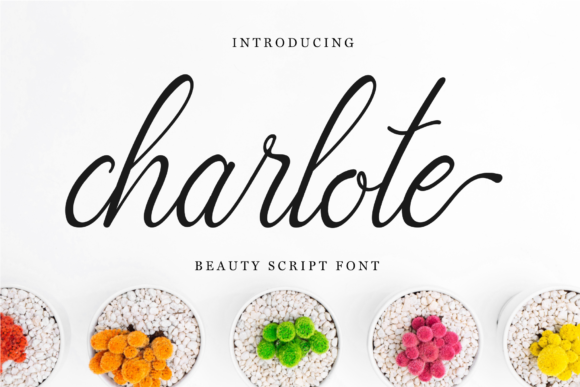
The Perfect Script Font for Your Next Creative Project
Have you ever stared at a blank page, trying to find the perfect words to express your idea, only to be held back by the monotony of the font you’re using? We’ve all been there. It’s that moment when you wish you had the perfect tool to bring your creativity to life.
Enter the Charlote Script Font, a delicate script font with a relaxed theme that’s designed to elevate your creations. With its lovely style, this font is the perfect addition to any designer’s library. Whether you’re working on a romantic wedding invitation, a children’s book, or a social media post, Charlote Script Font is sure to add a touch of elegance and sophistication.
What sets Charlote Script Font apart is its PUA encoding, which means you can access all of the glyphs and swashes with ease, making it a valuable asset for any designer looking to add a personal touch to their work.
- Unique Characteristics: Whimsical and elegant script font, perfect for creative and artistic projects, including invitations, wedding stationery, and branding materials
Designer Review: Charlote Script Font
I’ve had the chance to work with Charlote Script Font and overall, I’d say it’s a solid choice for projects that require a touch of elegance and sophistication. ✨ One of the things I appreciate about this font is its versatility – it works well for both print and digital applications. The script style gives it a unique touch that can add a level of sophistication to any design. ✨
When it comes to the technical aspects, Charlote Script Font performs well, with clear and crisp letterforms that are easy to read even at smaller font sizes. ✨ The font also includes a range of weights and styles, making it easy to customize and adapt to different design needs.
- ⚠️ The font can feel a bit overused, so it’s essential to use it thoughtfully to avoid clichés.
- ⚠️ Some of the letterforms can feel a bit disconnected, making it challenging to achieve seamless text flow.
- ⚠️ The font’s high-end feel can sometimes make it feel too formal or stuffy for more casual projects.
Overall, I’d give Charlote Script Font 4 out of 5 stars. While it’s not perfect, it’s a great choice for designers looking to add a touch of elegance to their projects. With careful use and consideration, it can be a valuable addition to any design toolkit.
To get the most out of the Charlotte Script font, try:
- Pairing it with a bold font for contrast.
- Using it for titles and headings.
- Experimenting with different font sizes and styles.
The Charlotte Script font is commonly used for:
- Home decor and signage.
Alternatives to Charlotte Script Font for Designers
Carolyna Pro is a beautiful script font that combines elegance and sophistication. It is ideal for wedding invitations, fashion branding, and luxury packaging. Compared to Charlotte Script Font, Carolyna Pro has a more refined and intricate design, making it perfect for high-end projects.
Alex Brush is a handwritten script font that exudes warmth and personality. It is suitable for creative projects such as art books, advertising, and editorial design. Compared to Charlotte Script Font, Alex Brush has a more casual and organic feel, making it ideal for projects that require a touch of whimsy.
Great Vibes is a modern script font that is perfect for contemporary branding and design projects. It is ideal for digital media, social media, and web design. Compared to Charlotte Script Font, Great Vibes has a more dynamic and energetic feel, making it perfect for projects that require a modern and trendy look.
Lobster is a vintage script font that is reminiscent of the 1920s and 1930s. It is ideal for projects that require a retro or antique feel, such as packaging, advertising, and editorial design. Compared to Charlotte Script Font, Lobster has a more ornate and decorative design, making it perfect for projects that require a touch of nostalgia.